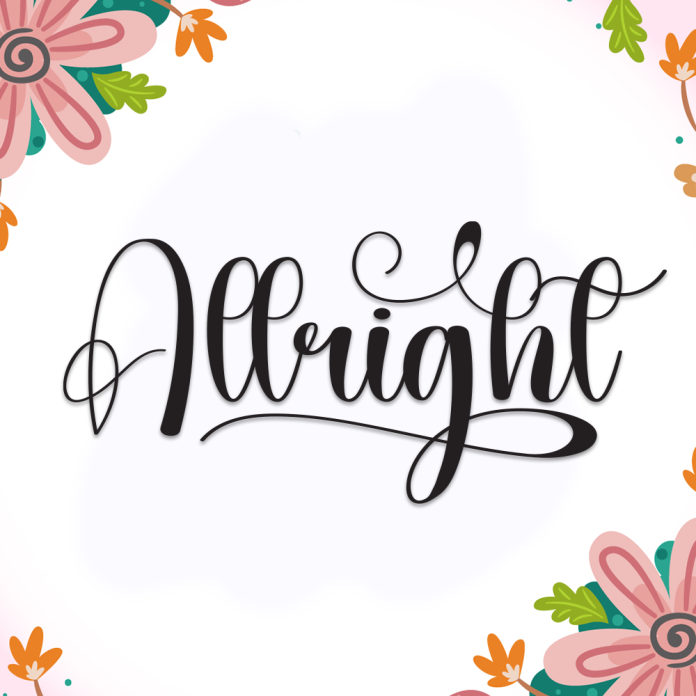
Allright is a relaxed and confident handwriting font that brings a friendly, modern feel to your designs. With its natural strokes and smooth rhythm, this font is perfect for personal branding, lifestyle blogs, stationery, and handwritten quotes.
It captures the essence of casual elegance — simple, stylish, and effortlessly cool.
Casual and smooth handwritten style
Great for quotes, branding, journals, and greeting cards
Includes uppercase & lowercase, numbers & punctuation
Say it with style using Allright — a handwriting font that’s charmingly authentic and always on point.